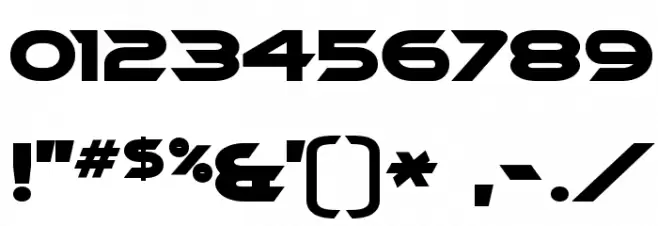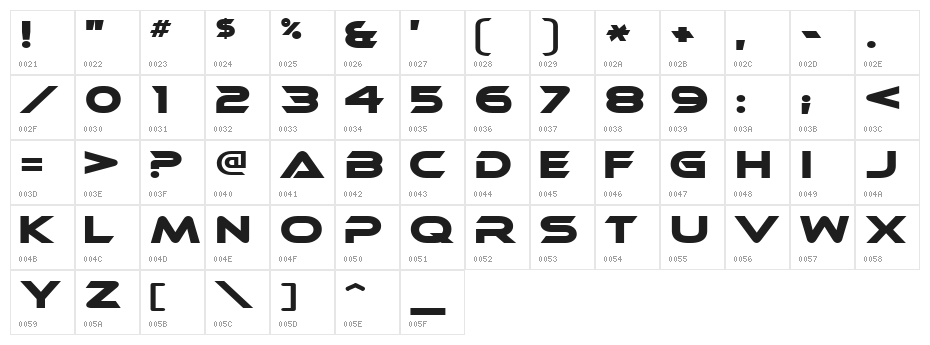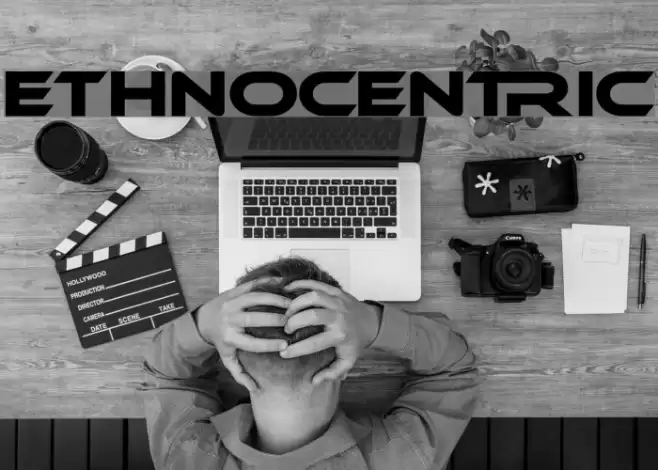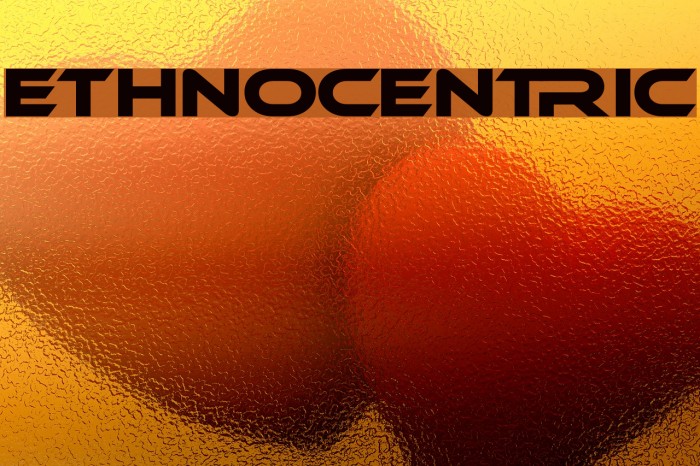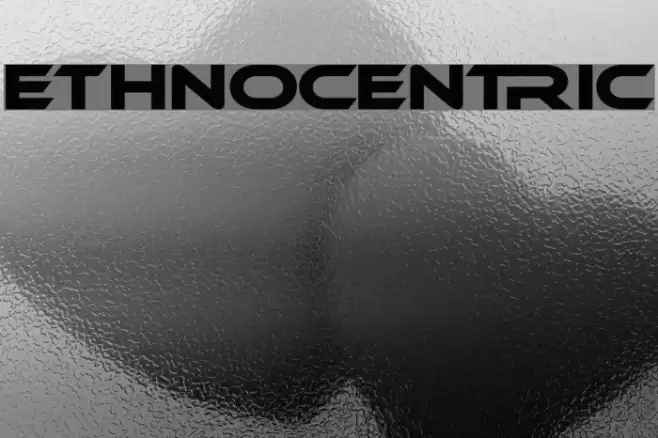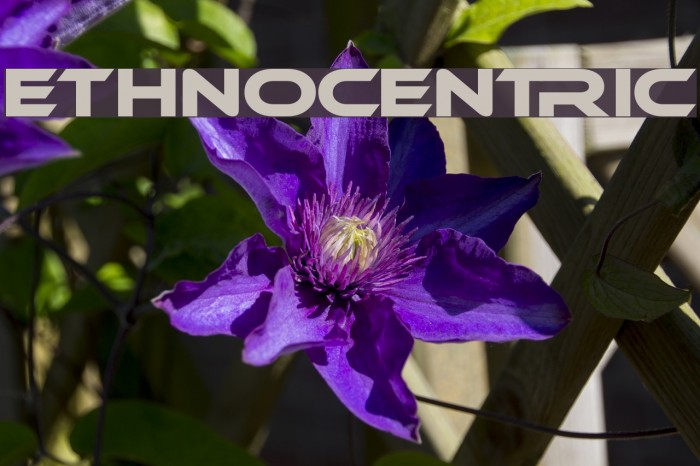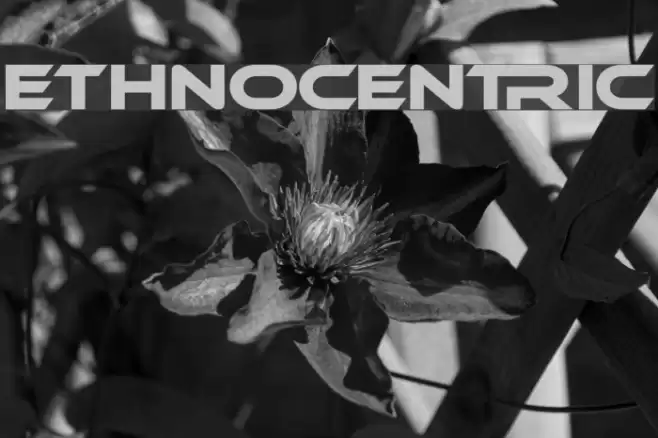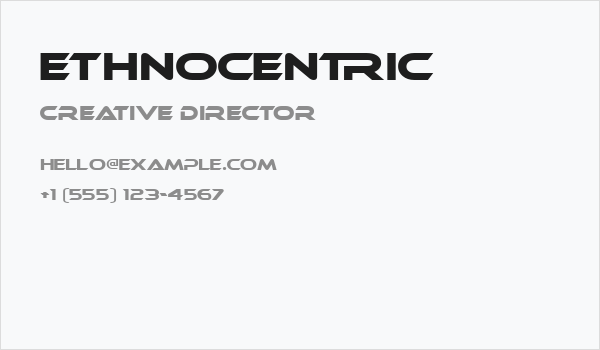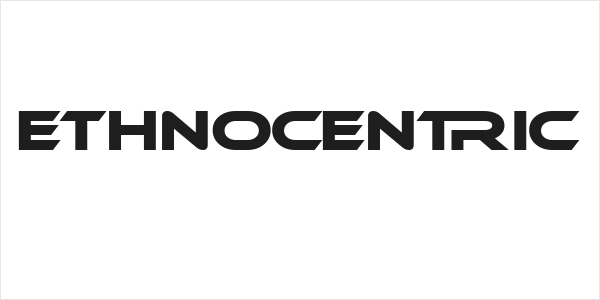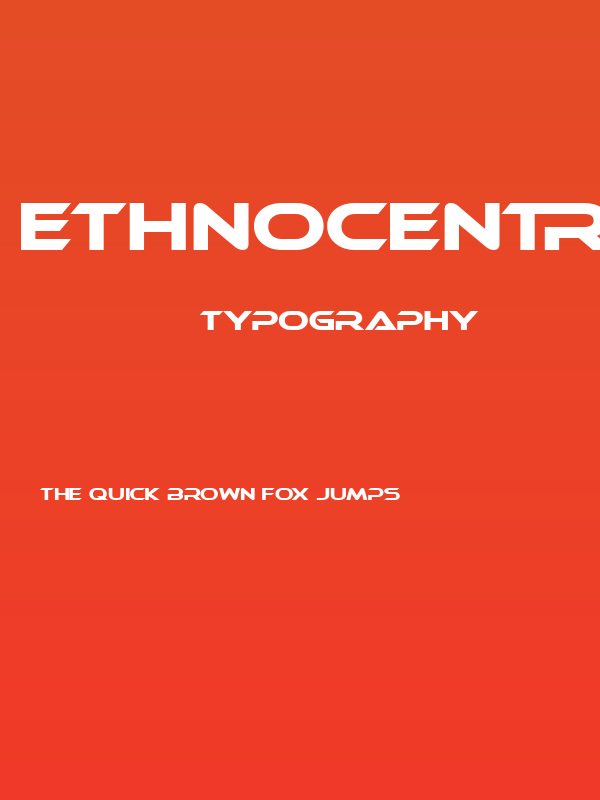
Ethnocentric Font
Ethnocentric Description
This font features a bold, futuristic style with sharp, angular lines and a distinct geometric structure. The uppercase letters are particularly striking, with a strong presence and unique character shapes that convey a sense of modernity and innovation. The lowercase letters maintain the same angular aesthetic, ensuring consistency throughout the typeface. Numbers and special characters are designed with the same boldness, making them stand out effectively. The overall design is clean and impactful, making it suitable for projects that require a contemporary and assertive look.